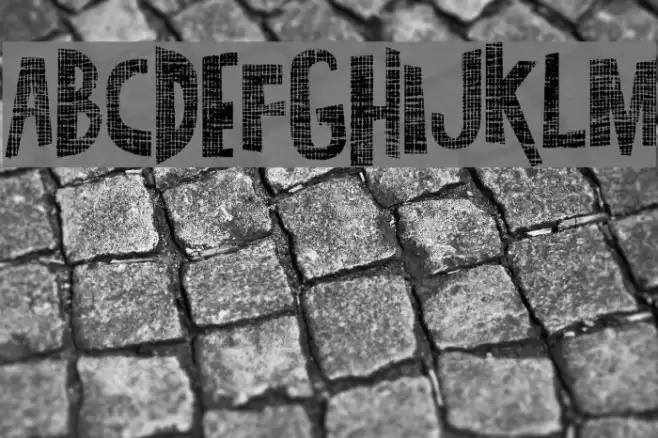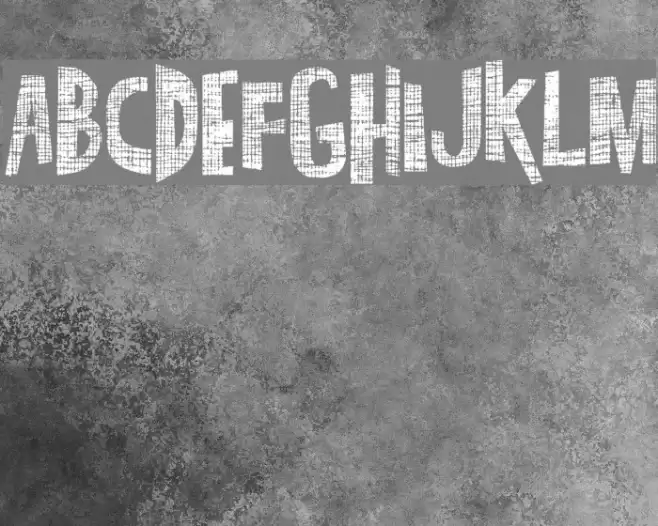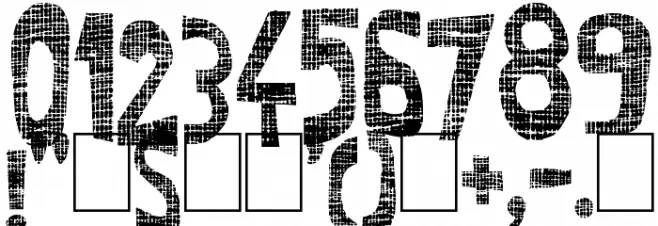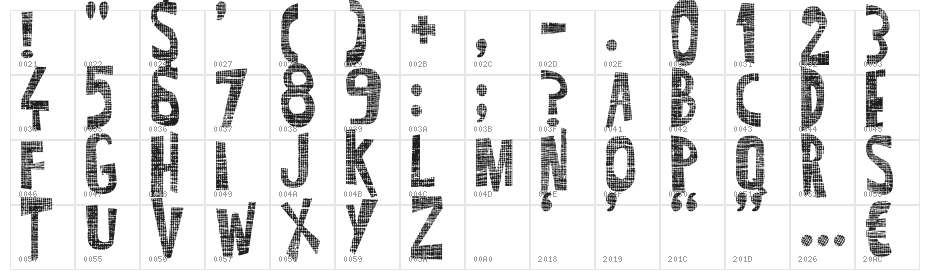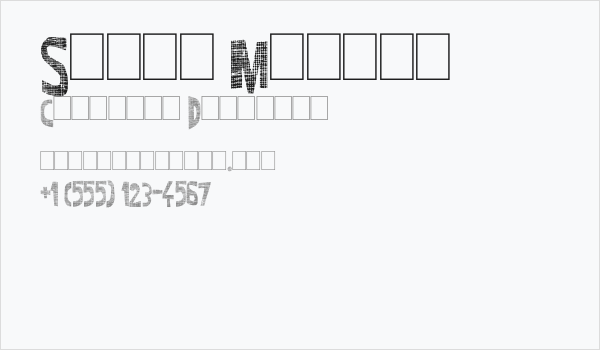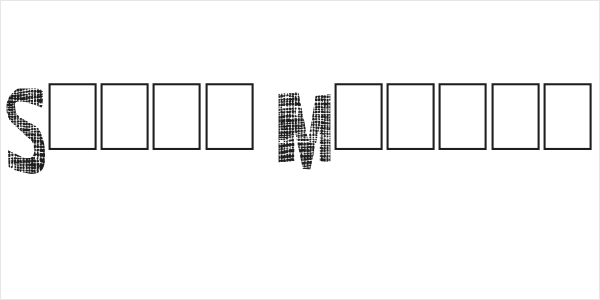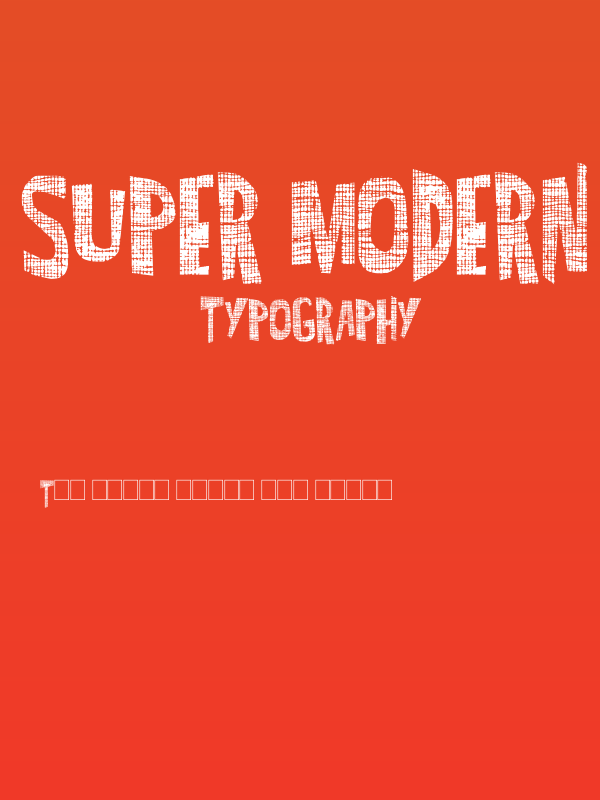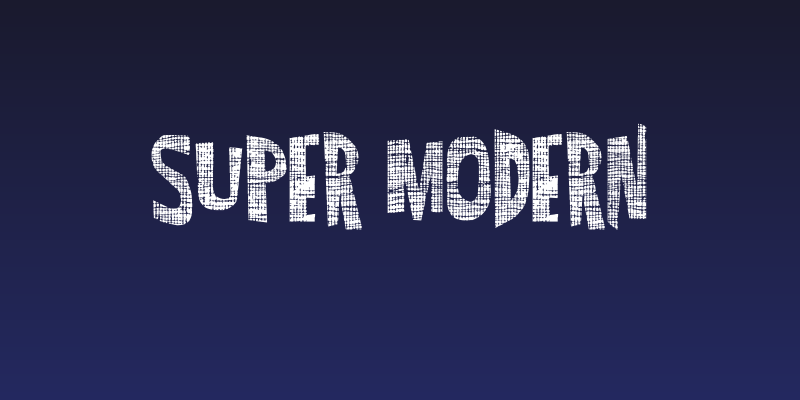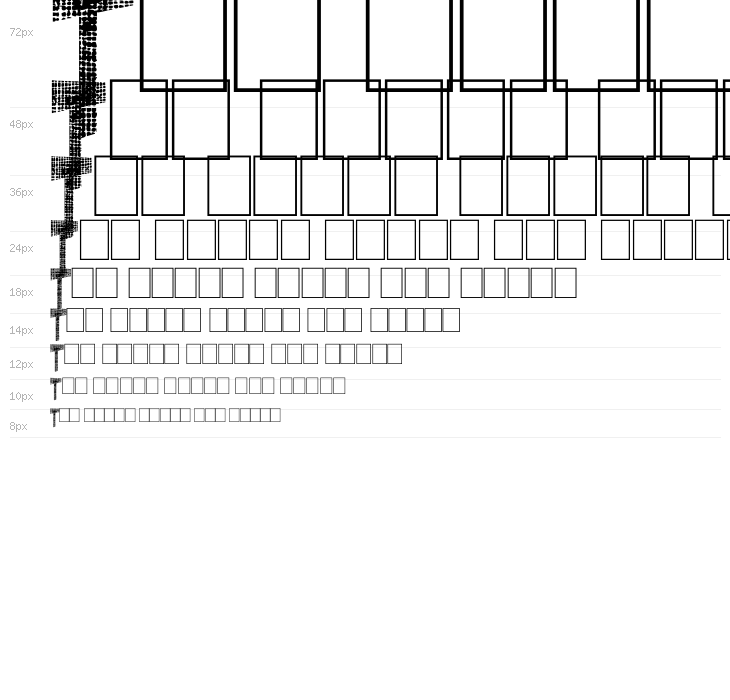
Super Modern Font
Super Modern Description
This font features a bold, distressed style with a textured overlay that gives it a rugged, urban appearance. The characters are uppercase and numerals, each with a unique pattern that resembles a worn or grunge effect. The strokes are thick and uneven, adding to the overall distressed look. This font is highly decorative and stands out due to its boldness and texture, making it suitable for eye-catching designs. The irregularities in the pattern contribute to its dynamic and edgy feel, perfect for projects that require a strong visual impact.
A bold, distressed font with a textured, grunge appearance from Uncategorized fonts.
- Proposed Projects: Ideal for posters, album covers, streetwear branding, and urban-themed graphics.
- Overall Style: Modern, Grunge